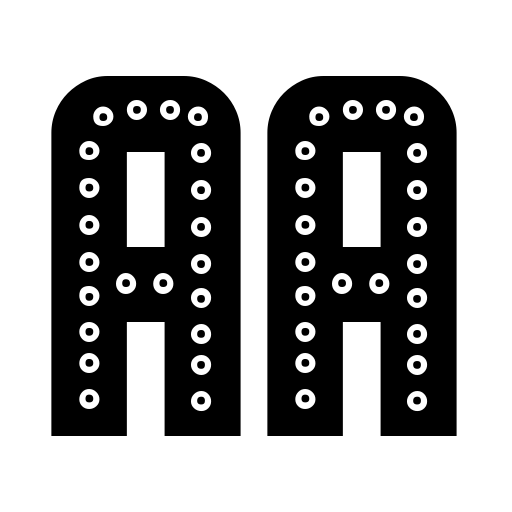
Broadway is a bold, decorative sans serif font with a distinctive Art Deco style, characterized by its tall, condensed letterforms adorned with evenly spaced circular dots that mimic theatrical marquee lights. Its vintage yet glamorous personality makes it perfect for eye-catching headlines, posters, and branding in entertainment, fashion, and retro-themed projects where a lively and stylish mood is desired. This font stands out for its striking visual impact rather than body text, bringing a sense of flair and showmanship to any design.
Broadway Font
About Broadway Font